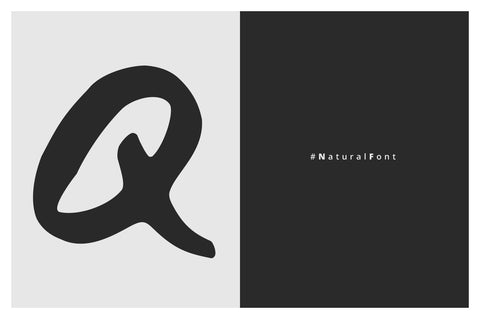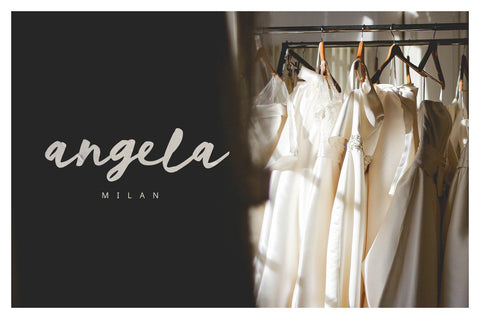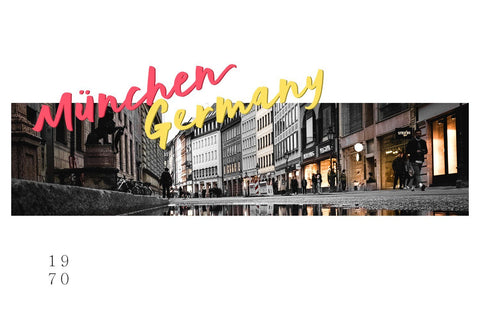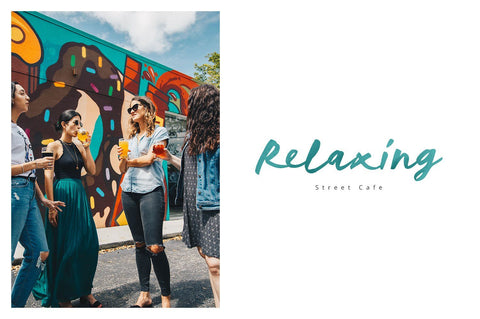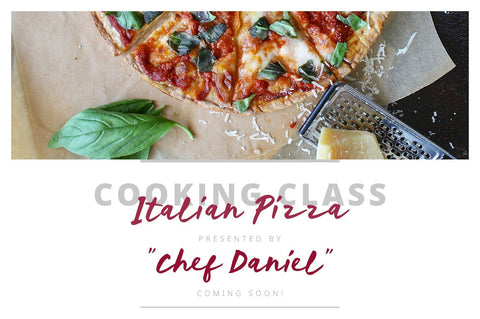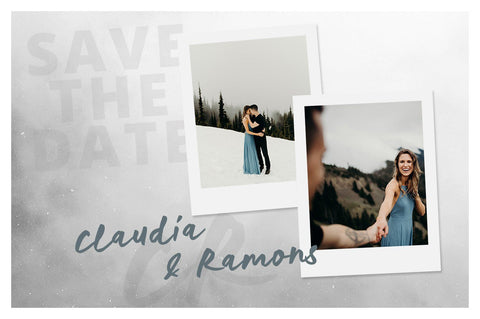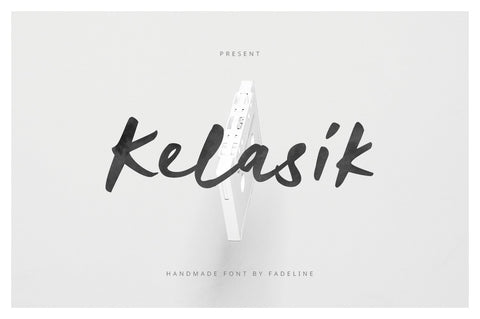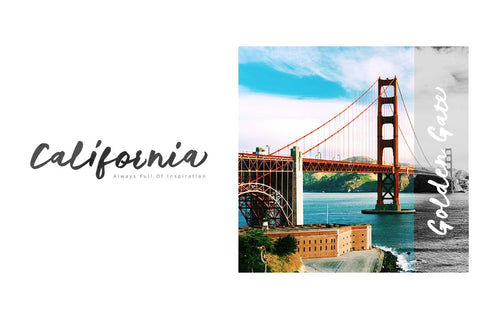
Kelasik Handmade Font
Introduce Kelasik Script!
Kelasik a new handmade script with a style natural, sweet and simple. Made with great care to provide the natural and modern elements. This font will look beautiful if used single even with other pairing fonts. The great thing about this font is you can find some style when you use it, examples such as natural handwriting style, unique, simple, elegant, and bold. Please try it!
With a style like this, this font will be suitable in use for logo's, branding projects, homeware designs, product packaging, mugs, quotes, posters, shopping bags, logo's, t-shirts, book covers, name card, invitation cards, greeting cards, and all your other lovely projects.
You can use this font for your job very easily. Because there are many features in it. Contains the complete set of lower and uppercase letters, punctuation, numbers, web fonts, and multilingual support. This font also includes several ligatures and alternative style Stylistic Set For those of you who have software that is capable of working OpenType (Corel Draw / Photoshop / Illustrator / InDesign).